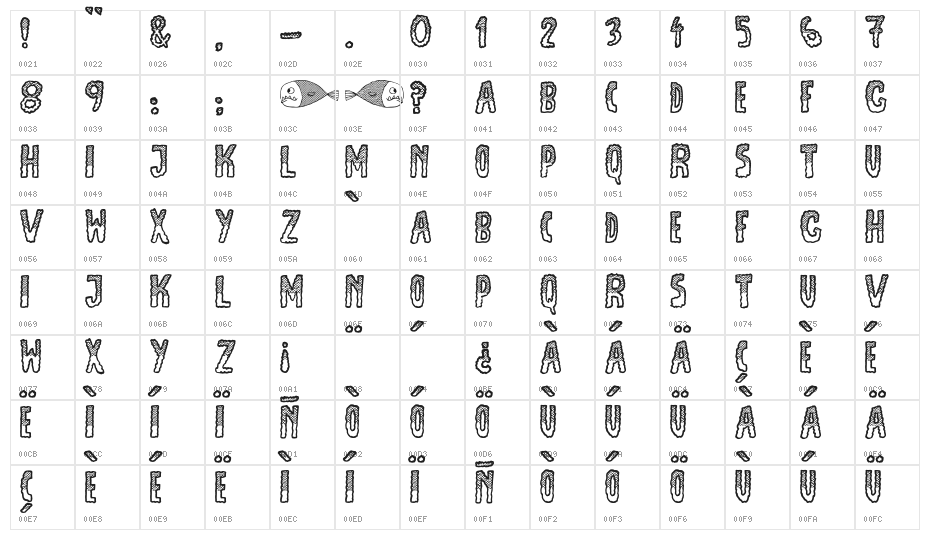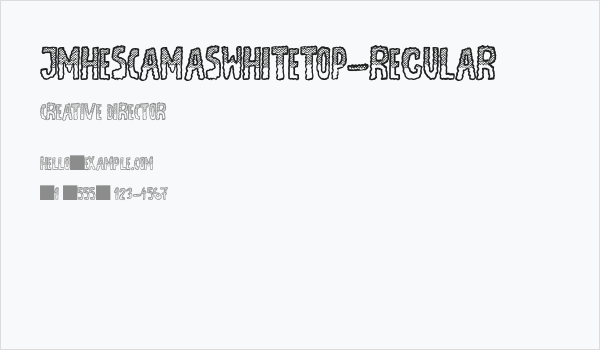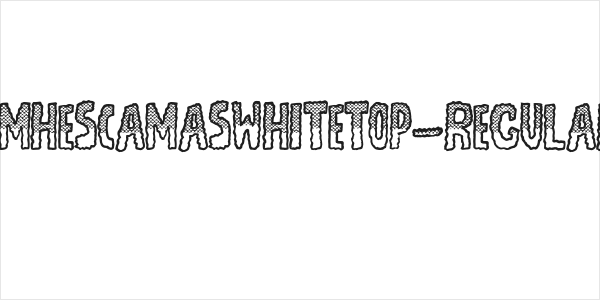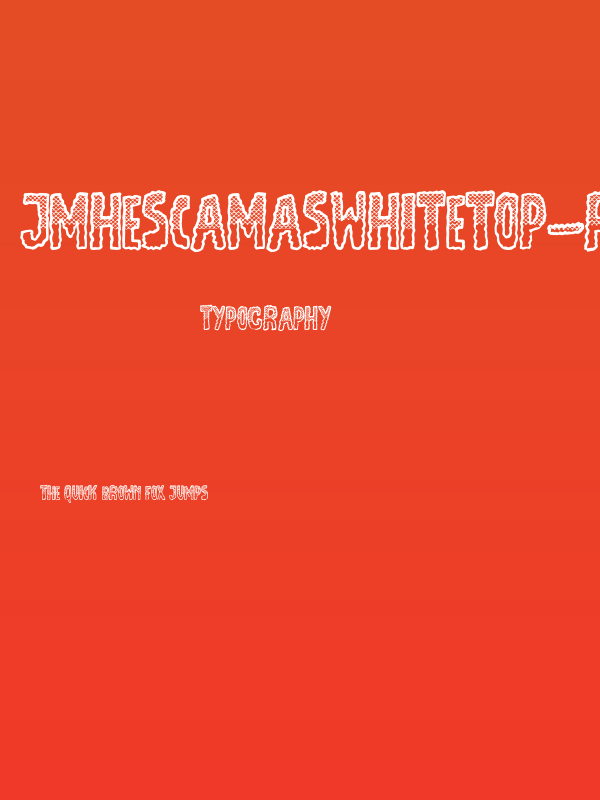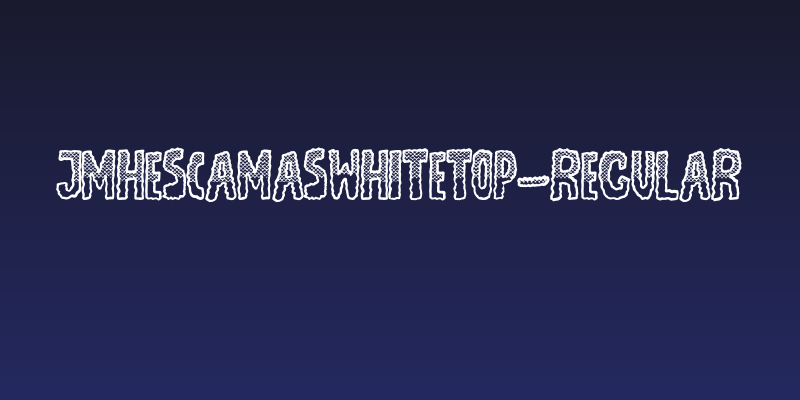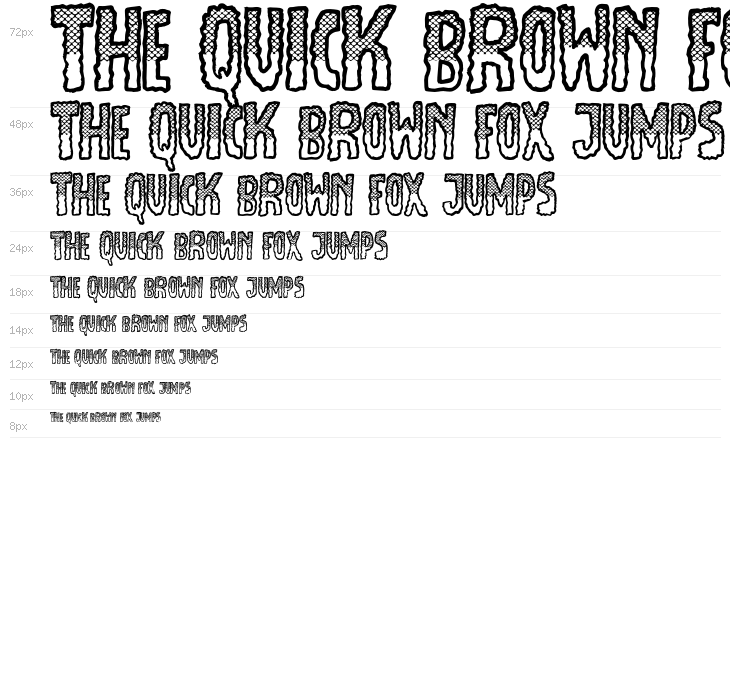
JMHEscamasWhiteTop-Regular Font
JMHEscamasWhiteTop-Regular Description
This font features a unique, decorative style with a textured, scaly pattern filling each character. The bold, uppercase and lowercase letters are outlined with a thick, uneven stroke, giving them a hand-drawn appearance. The numbers and special characters follow the same design, maintaining consistency throughout. The playful and artistic nature of this font makes it stand out, ideal for creative projects that require a distinctive and eye-catching typeface.
| Proposed Projects | Ideal for posters, children's book covers, playful branding, and artistic designs. |